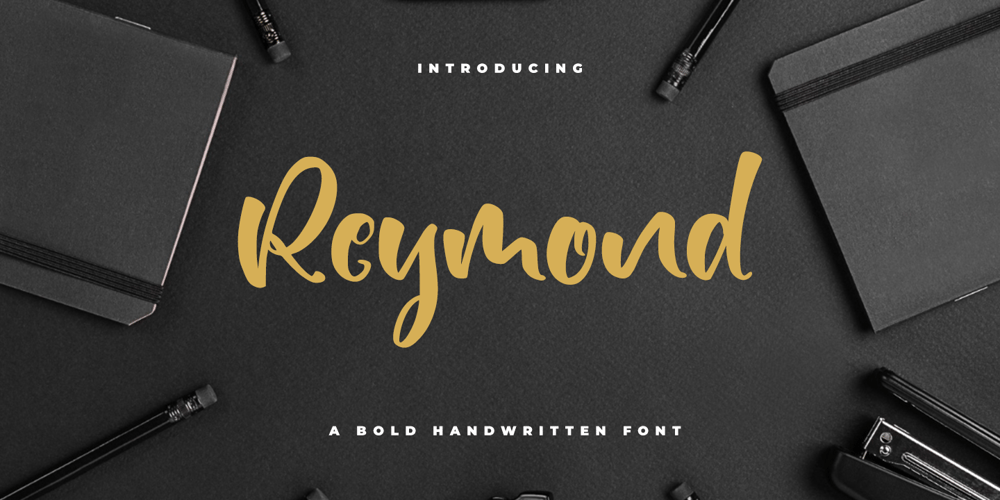
Reymond Font Family was designed by Hayinah and published by Rockboys Studio. Reymond contains 1 styles and family package options. Reymond is a lovely and timeless handwritten font. It is the best choice for creating eye catching logos, branding and quotes. Every letter has a unique and beautiful touch, which will make your design come alive!